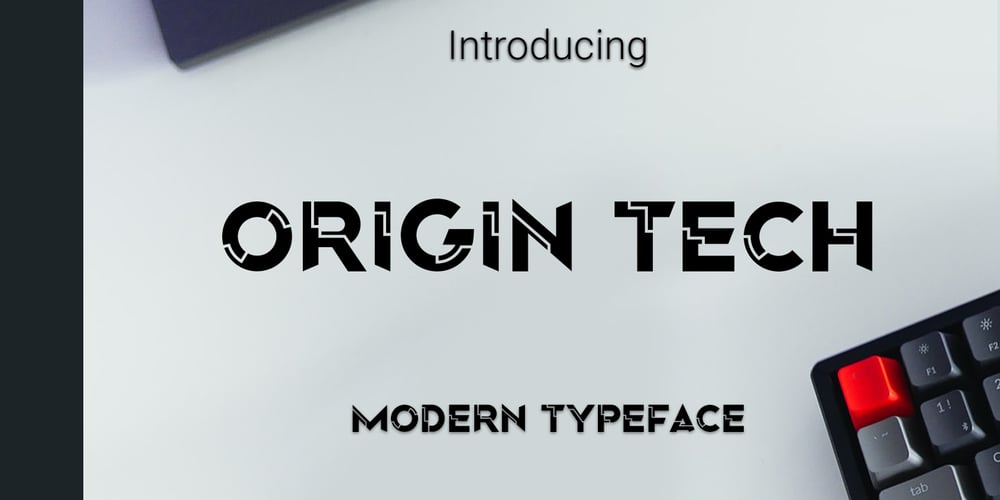
Origin Tech
Origin Tech font
Origin Tech Font Family was designed by RoninDesign and published by Ronin Design. Origin Tech contains 1 styles and family package options. Origin Tech is a modern typeface inspired from technologies, this display font have a beginning and ending alternate and also have some swashes will make your design perfect. Origin Tech designed for modern project theme, perfect for game/app design, logo design, poster, advertising and many more